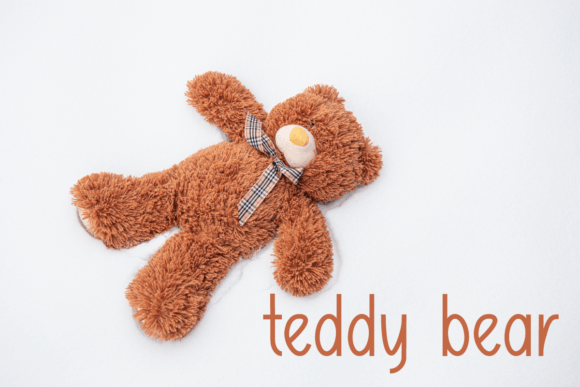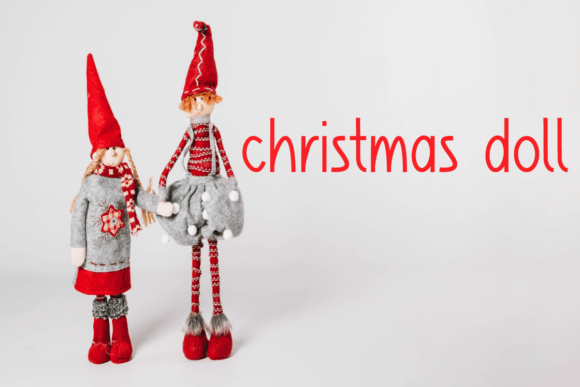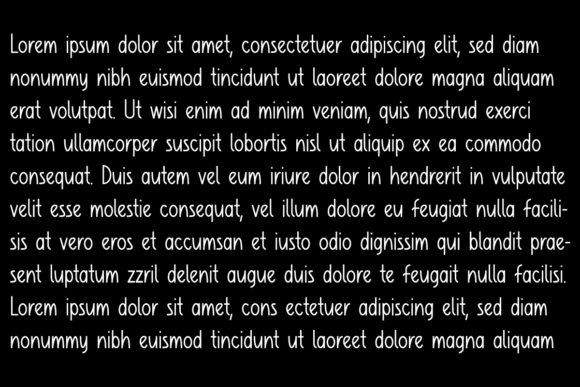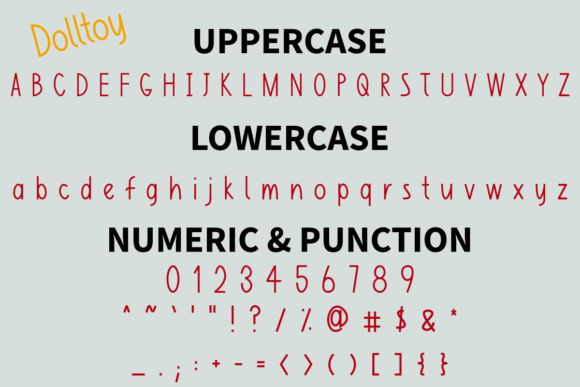
Dolltoy Font: Add a Touch of Whimsy to Your Designs
Are you looking for a font that can add a dash of fun and friendliness to your designs? Look no further than the Dolltoy Font! This handwritten font is perfect for designers and crafters who want to create unique and eye-catching projects. In this article, we’ll take a closer look at the Dolltoy Font, its features, and how you can use it to elevate your designs.
What is Dolltoy Font?
Dolltoy Font is a fun and friendly handwritten font that is whimsical and a bit quirky. It’s the perfect addition to any design project that needs a touch of personality. This font is designed to brighten up your designs and make them stand out from the crowd. With its unique and playful style, Dolltoy Font is sure to capture the attention of your audience.
Features of Dolltoy Font
So, what makes Dolltoy Font so special? Here are some of its key features:
- Handwritten style: Dolltoy Font has a beautiful, handwritten style that gives it a personal and friendly feel.
- Whimsical and quirky: This font has a playful and quirky vibe that’s perfect for designs that need a bit of personality.
- Versatile: Dolltoy Font can be used for a wide range of design projects, from logos and wedding invitations to quotes and advertisements.
- Easy to read: Despite its playful style, Dolltoy Font is easy to read and understand, making it perfect for body text and headlines.
Uses of Dolltoy Font
Dolltoy Font is a versatile font that can be used for a wide range of design projects. Here are some ideas to get you started:
- Logos: Use Dolltoy Font to create a unique and memorable logo for your business or brand.
- Wedding invitations: Add a touch of whimsy and romance to your wedding invitations with Dolltoy Font.
- Quotes and posters: Use Dolltoy Font to create eye-catching quotes and posters that will grab the attention of your audience.
- Advertisements: Dolltoy Font is perfect for advertisements that need a bit of personality and flair.
- Print and magazines: Use Dolltoy Font in your print designs, such as magazines, brochures, and flyers, to add a touch of whimsy and fun.
Tips for Using Dolltoy Font
Here are some tips for using Dolltoy Font in your designs:
- Use it confidently: Don’t be afraid to use Dolltoy Font in your designs. Its unique style is sure to make your projects stand out.
- Experiment with colors: Dolltoy Font looks great in a variety of colors, so don’t be afraid to experiment and find the perfect color scheme for your design.
- Pair it with other fonts: Dolltoy Font can be paired with other fonts to create a unique and interesting design. Try pairing it with a bold font for a striking contrast.
- Use it for headlines and body text: Dolltoy Font is easy to read, making it perfect for both headlines and body text.
| Font Name | Dolltoy Font |
| Author | Woracado |
In conclusion, Dolltoy Font is a fun and friendly handwritten font that is perfect for designers and crafters who want to add a touch of whimsy to their designs. With its unique and playful style, Dolltoy Font is sure to capture the attention of your audience and make your projects stand out. Whether you’re creating logos, wedding invitations, quotes, or advertisements, Dolltoy Font is a great choice. So why not give it a try and see the difference it can make in your designs?
Overall, Dolltoy Font is a great addition to any design project that needs a bit of personality and whimsy. Its unique style and versatility make it a great choice for designers and crafters of all levels. So why not give it a try and see the difference it can make in your designs?